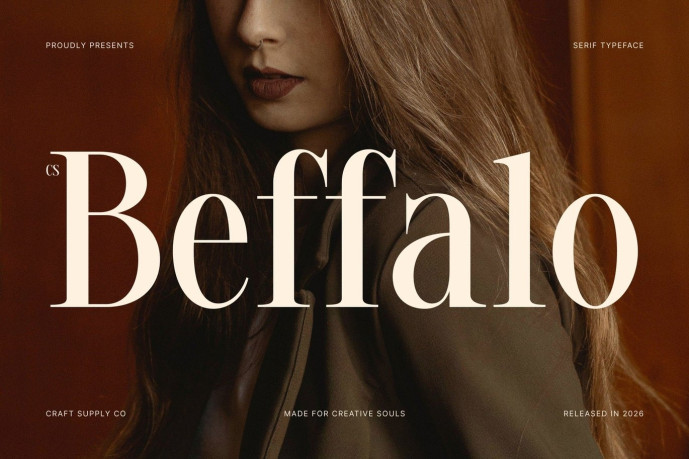
Beffalo – Elegant Serif Font
Designer: Craft Supply Co.
CS Beffalo – Elegant Serif Font: Where Refined Curves Meet Timeless Luxury Refined Curves with Graceful Elongated Details This is an elegant serif font distinguished by its refined curves and elongated details, creating a luxurious visual identity that feels graceful, polished, and timeless. Its carefully crafted letterforms blend delicate elegance with balanced proportions, resulting in typography that exudes sophistication while maintaining exceptional readability.
Contemporary Elegance with Classic Inspiration Combining the beauty of traditional serif typography with a clean contemporary structure, this font offers a fresh yet timeless aesthetic. Its elongated details introduce a graceful rhythm and visual refinement, while its smooth curves soften the overall appearance, creating a harmonious balance between classic charm and modern minimalism.
Premium Character with Professional Appeal This font communicates exclusivity through its elegant silhouette and refined craftsmanship. Every character is designed to deliver a polished and memorable impression, making the font equally effective for expressive headlines and sophisticated branding. Its versatile elegance allows it to enhance both print and digital applications with a sense of prestige and artistic refinement.
Perfect for Luxury Design, Editorials, and Branding Ideal for luxury branding, editorial layouts, magazines, premium packaging, beauty and cosmetics branding, hotel and hospitality identities, invitations, product labels, logos, and other high-end creative projects. Its elegant serif forms make it perfect for typography that seeks to communicate sophistication, exclusivity, and timeless style.